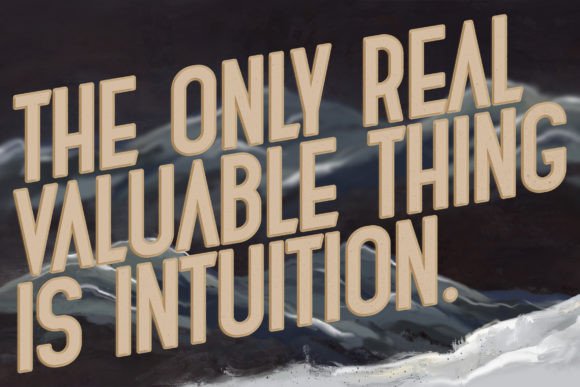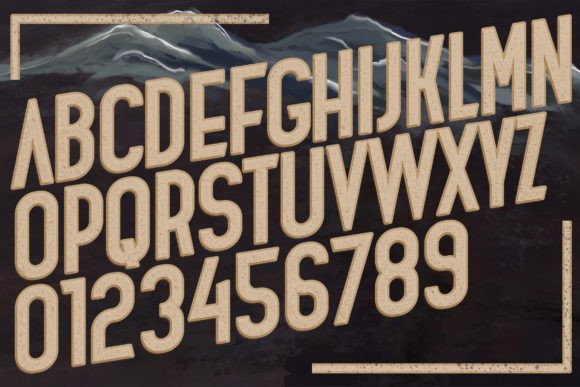
Introduction to Planina Font
Planina is a stylish and bold font.
With Planina Font, you can make it easier to convey the message in your design Use for awesome display, labeling, clothing, movie screen, poster, movie title, gigs, album covers, logos, and much more.